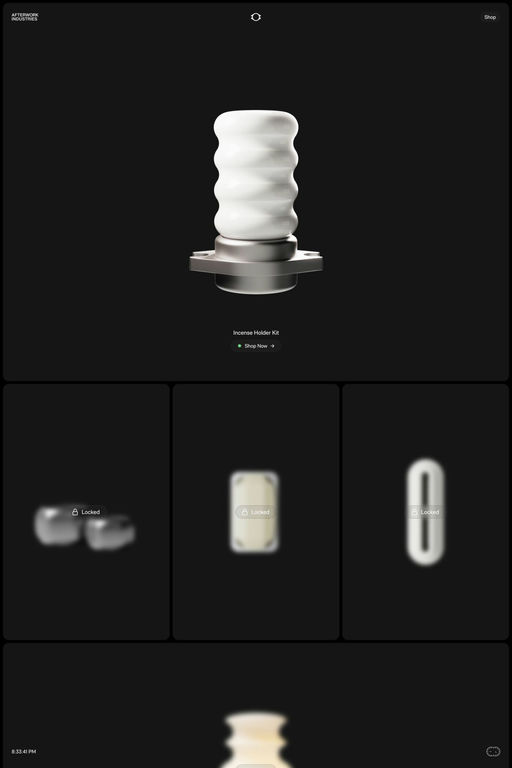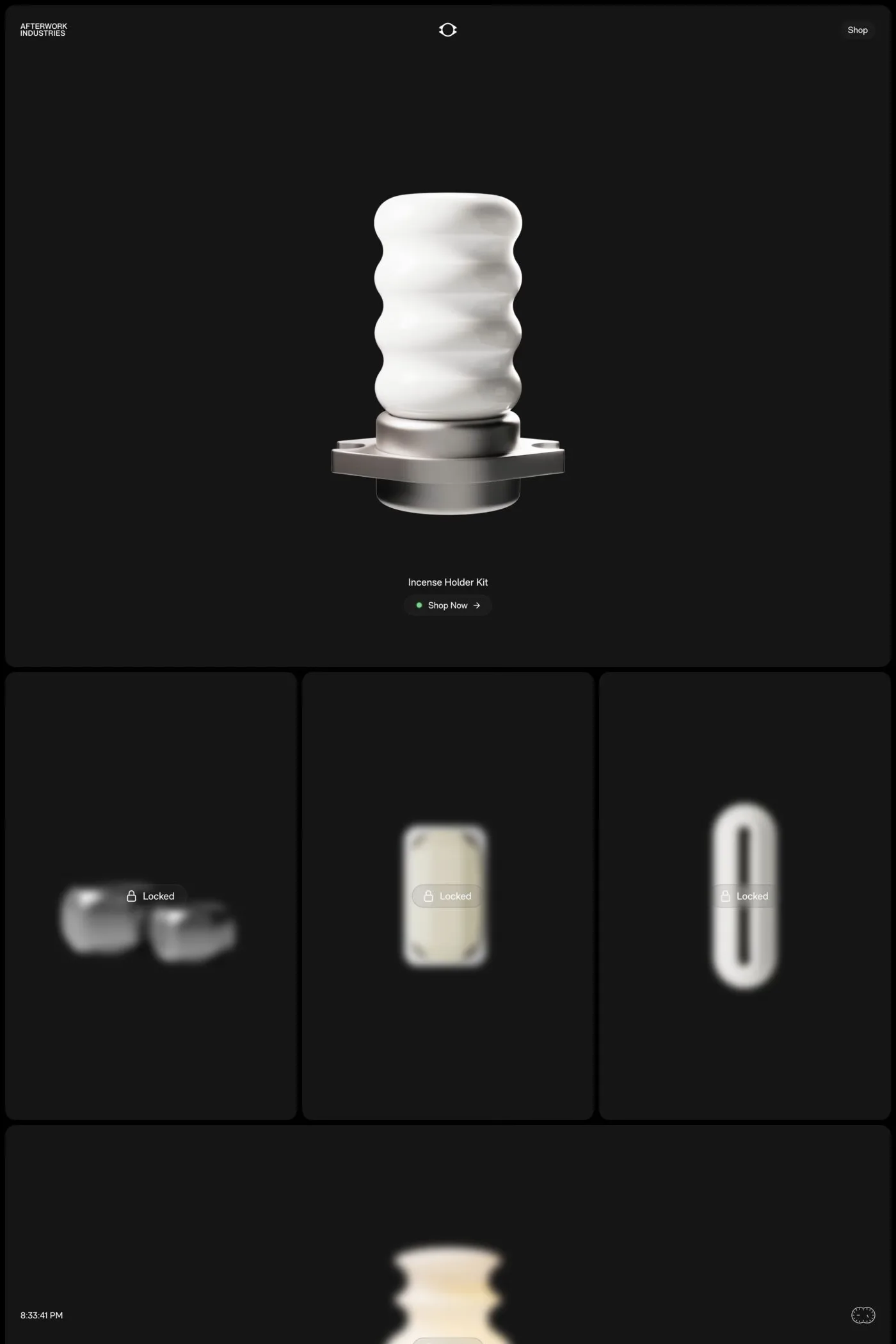
RM Neue is a sans-serif typeface from CoType Foundry.
RM Neue takes inspiration from utilitarian neo-grotesques, and positions itself as a timeless and versatile addition to any designer’s toolkit. Its compact proportions and low-contrast design create a familiar aesthetic that feels approachable without the sterility often associated with grotesque typefaces.